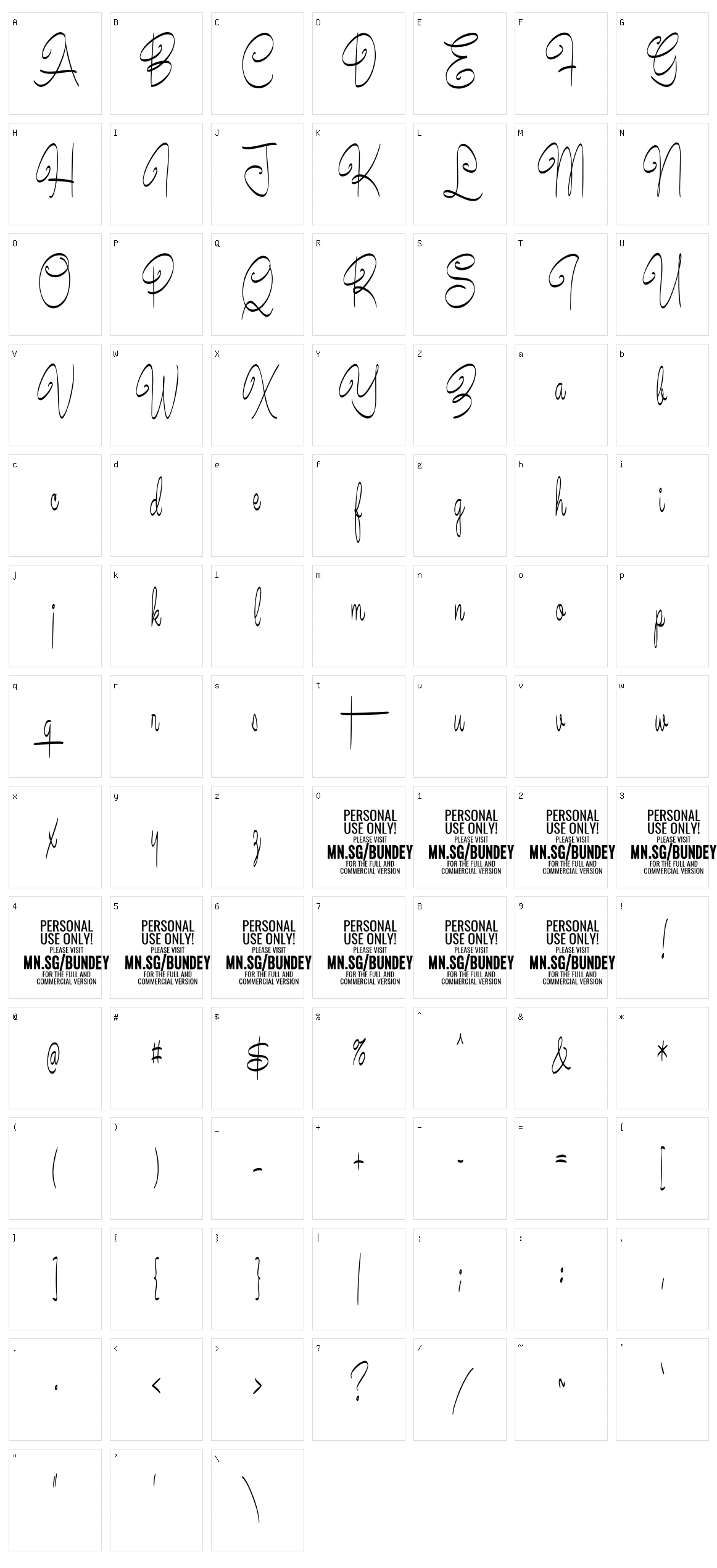
Bundey Script is a beautiful calligraphy typeface.
In a nice handwriting style, this signature font has an optimistic and light movement.
The script lettering was drawn and created by Mans Greback in 2022.
The Bundey Script family consists of six professional styles:
Regular, Bold, Black, Italic and combinations, complimenting each other for the greatest design possibilities.
The font is built with advanced OpenType functionality and has a guaranteed top-notch quality, containing stylistic and contextual alternates, ligatures and more features; all to give you full control and customizability.
It has extensive lingual support, covering all Latin-based languages, from Northern Europe to South Africa, from America to South-East Asia.
It contains all characters and symbols you'll ever need, including all punctuation and numbers.